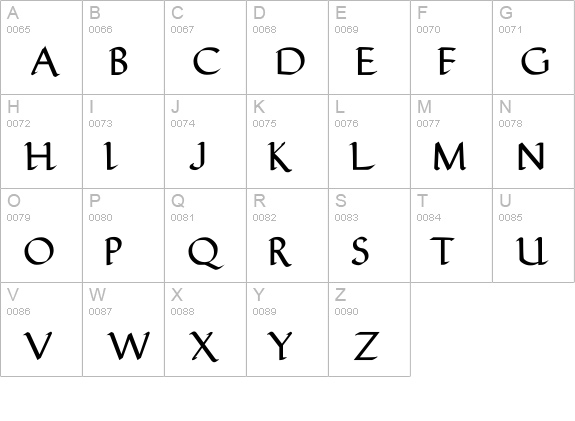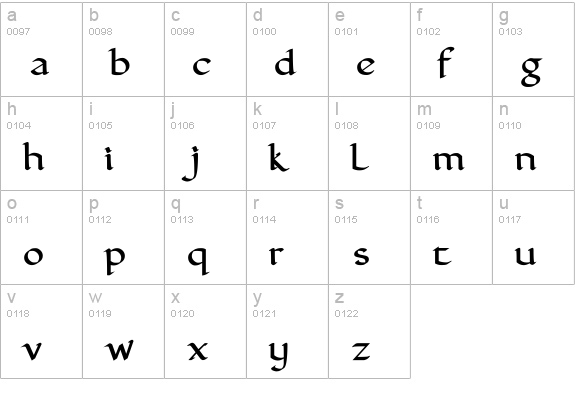
FinalRoman Medium Font Details
FinalRoman Medium is a balanced, medium-weight variant in the FinalRoman typeface family \xE2\x80\x94 well suited to sub-headlines, navigation, and balanced editorial work.
FinalRoman Medium font is a classic and elegant typeface that exudes sophistication and timelessness. With its clean lines and balanced proportions, this font is perfect for adding a touch of refinement to any design project. The medium weight strikes the perfect balance between boldness and delicacy, making it versatile for a variety of applications. What's even better is that FinalRoman Medium font is available for free download at FontsMarket.com. This means you can easily access this high-quality typeface without any cost, making it a valuable addition to your font collection. Whether you're working on branding, editorial design, or any other creative project, FinalRoman Medium font is sure to elevate your work with its timeless appeal and professional look.